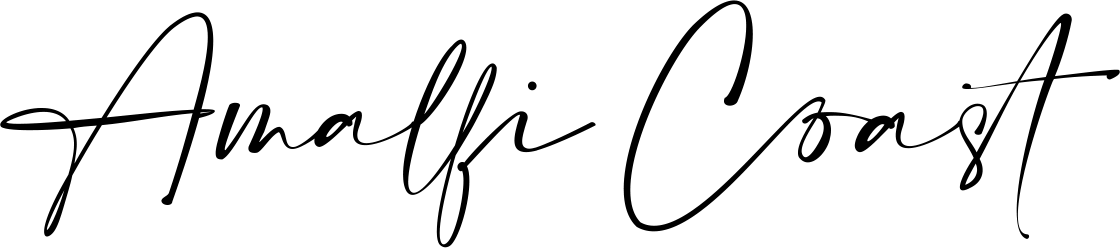
Amalfi Coast Font
This cursive calligraphy font has a natural flow that surprisingly draws the eye. Its cool and pretty swashes have given it a cheerful look. Amalfi Coast can be a good choice for flyers, invitations, wedding cards, books…
This cursive calligraphy font has a natural flow that surprisingly draws the eye. Its cool and pretty swashes have given it a cheerful look. Amalfi Coast can be a good choice for flyers, invitations, wedding cards, books, etc.